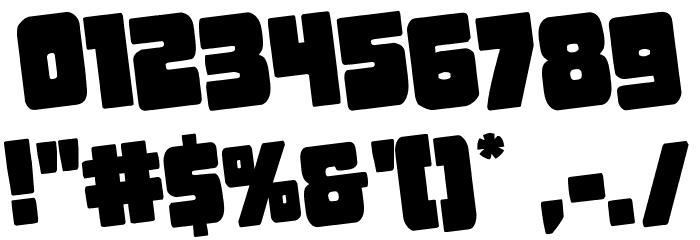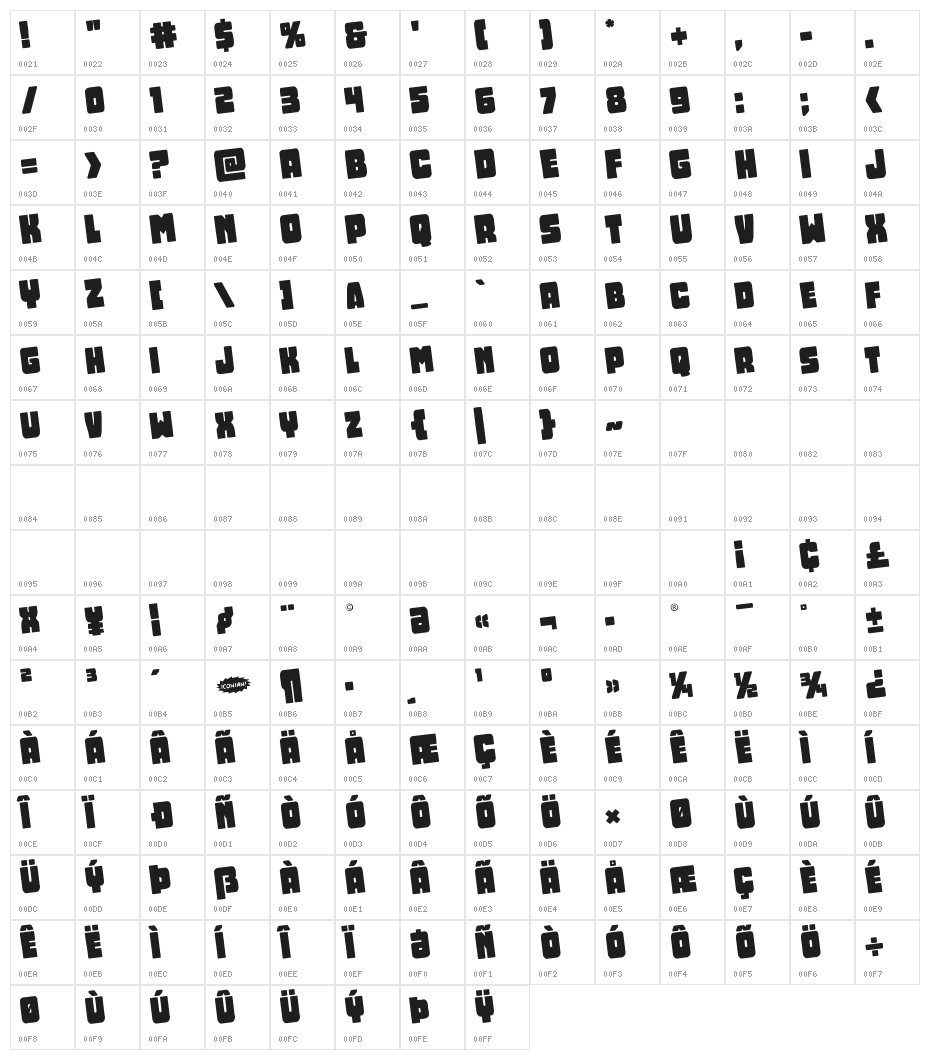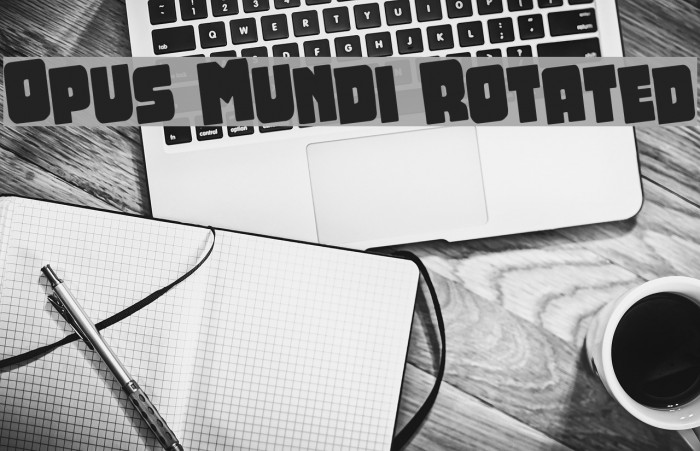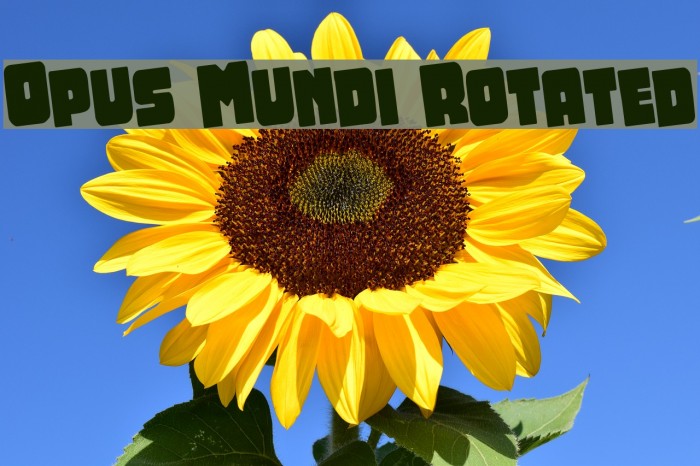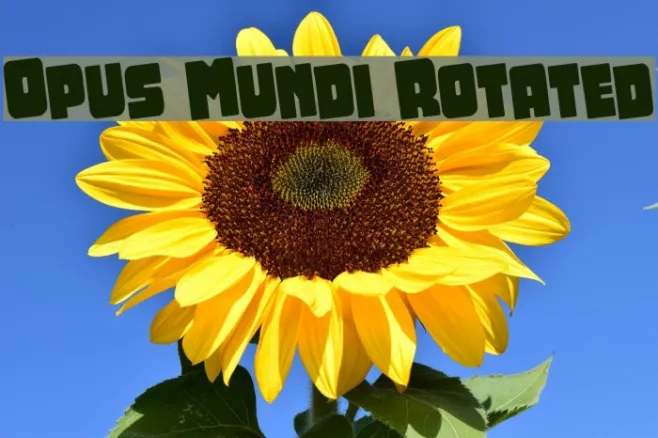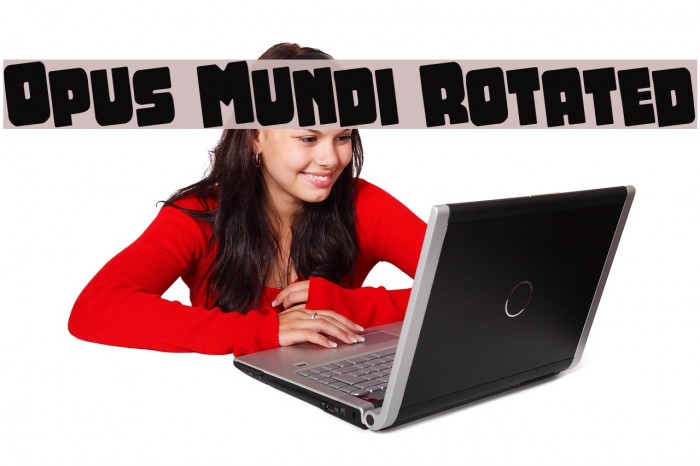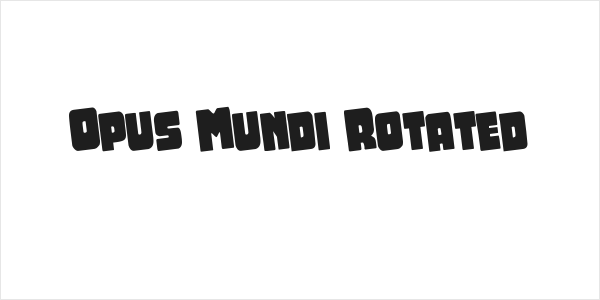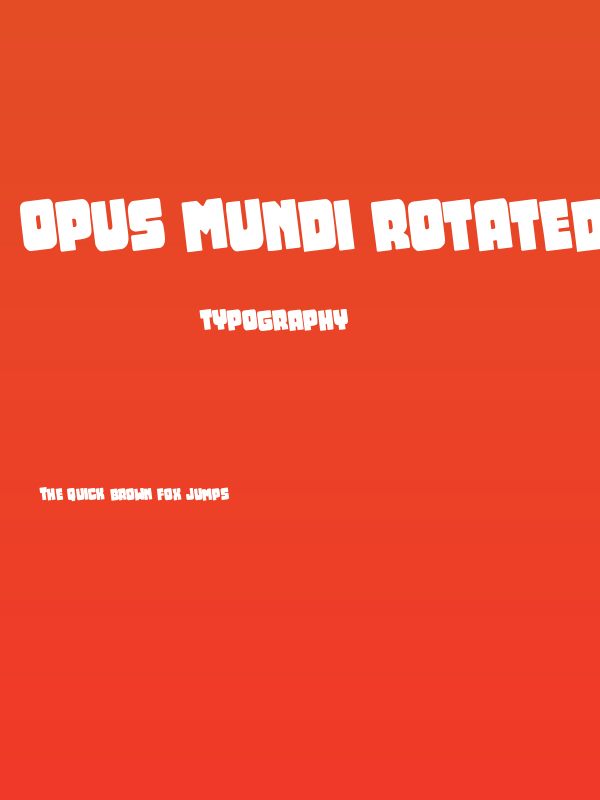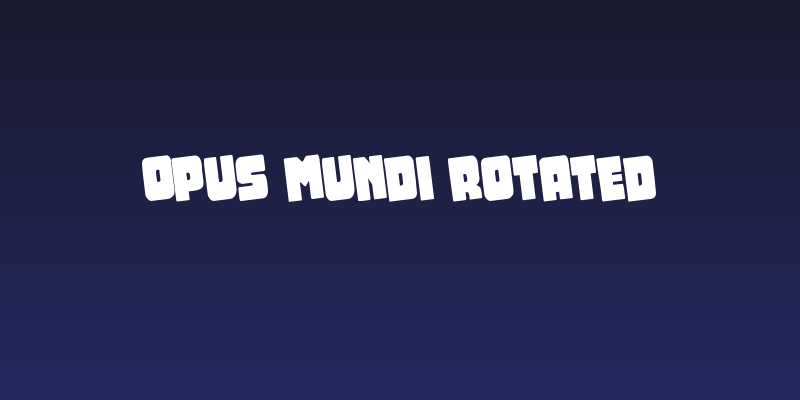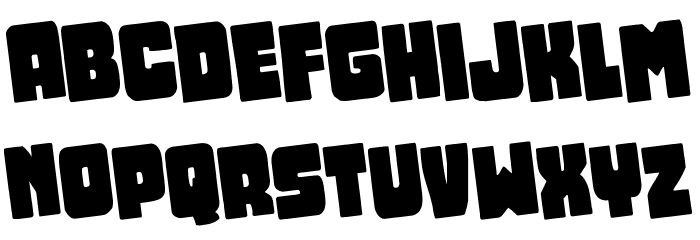
This font features bold, blocky characters with a distinctively heavy weight, giving it a strong and impactful presence. The letters are uniformly wide, with a slightly condensed appearance, and exhibit minimal contrast in stroke thickness, maintaining a consistent boldness throughout. The characters are designed with a playful and dynamic style, making them suitable for attention-grabbing headlines or titles. The font includes a full set of uppercase letters, numbers, and a variety of special characters, all maintaining the same robust and chunky aesthetic.
| Proposed Projects | Ideal for posters, logos, headlines, and any design requiring a strong visual impact. |